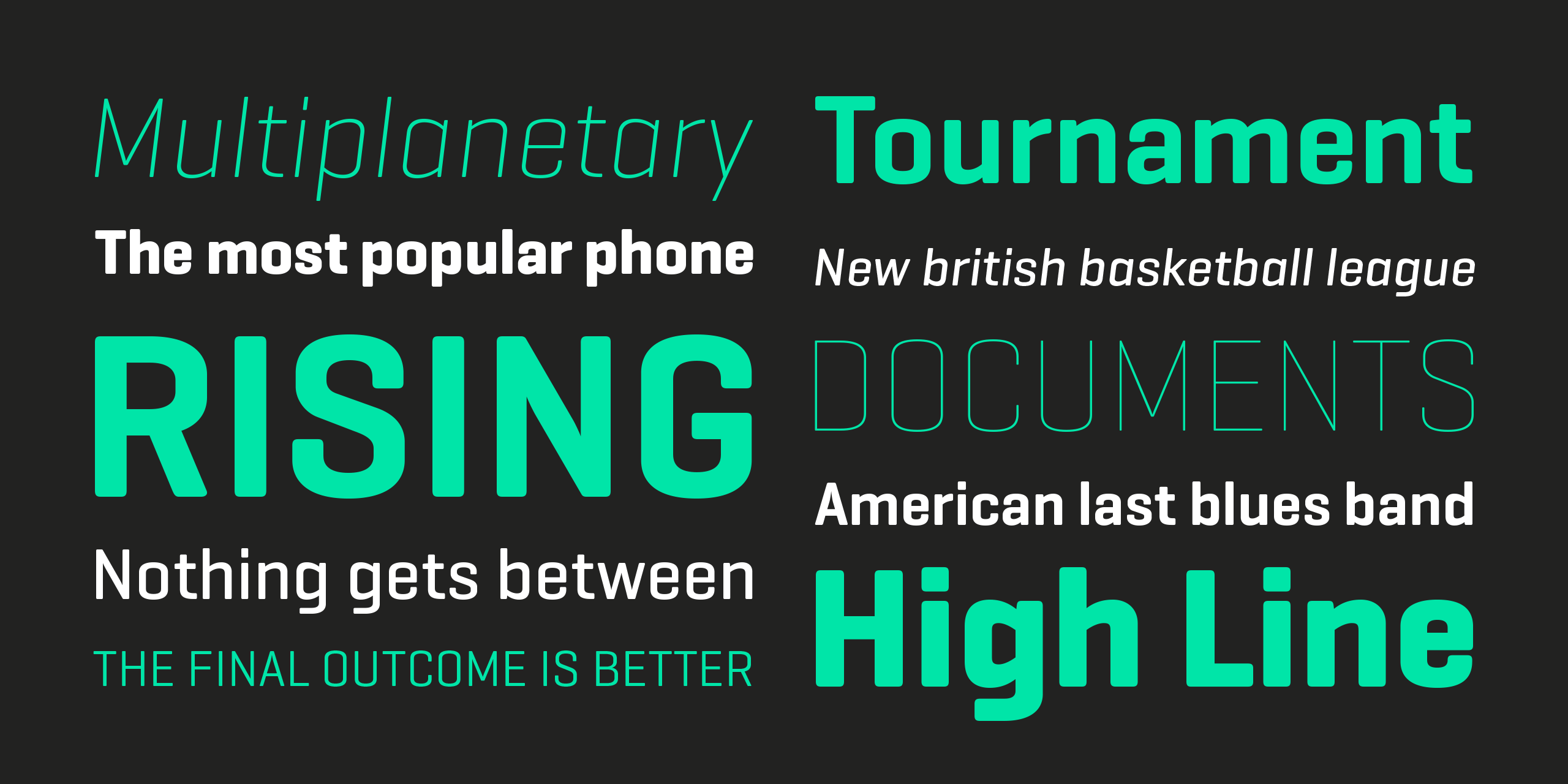
The Geogrotesque Font excels in various design applications including contemporary corporate branding, modern architectural communications, clean technology interfaces, progressive editorial design, minimalist poster layouts, sophisticated web typography, professional business presentations, sleek product packaging, institutional signage systems, and systematic brand identities that demand geometric precision and timeless modernist appeal.
What makes the Geogrotesque Font exciting is its masterful synthesis of classic grotesque typography principles with contemporary geometric refinements that create exceptionally versatile letterforms suitable for both digital and print applications. This typeface demonstrates perfect balance between mathematical precision and humanistic warmth, featuring clean geometric construction that maintains excellent readability while projecting confidence and professional sophistication. The font's systematic character makes it ideal for organizations seeking reliable typography that communicates competence, clarity, and forward-thinking vision across all communication platforms.
The Geogrotesque Font family typically includes comprehensive weight variations from thin to black, featuring corresponding italic styles and extended character sets with enhanced OpenType features. These family options often include condensed and extended width variants, specialized numerical sets, and professional symbols that provide designers with complete typographic solutions for complex branding systems and multi-platform applications requiring consistent visual performance.
Design professionals and corporate brand managers consistently select Geogrotesque Font Free Download for projects requiring dependable, contemporary typography that performs excellently across traditional and digital media. This typeface delivers outstanding results in corporate communications, architectural presentations, and technology branding where establishing credibility and maintaining clean visual hierarchy is essential for organizational success. The font's geometric foundation makes it particularly effective for systematic branding applications and technical documentation. Download Geogrotesque Font Free Download today to access this exceptional typeface that elevates professional communications with its geometric excellence and contemporary sophistication, creating compelling visual experiences that demonstrate organizational competence and modern design sensibility while maintaining exceptional functionality and readability standards.